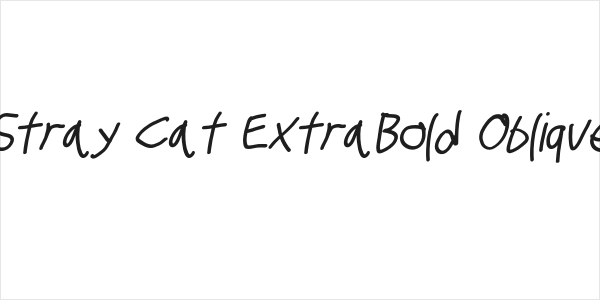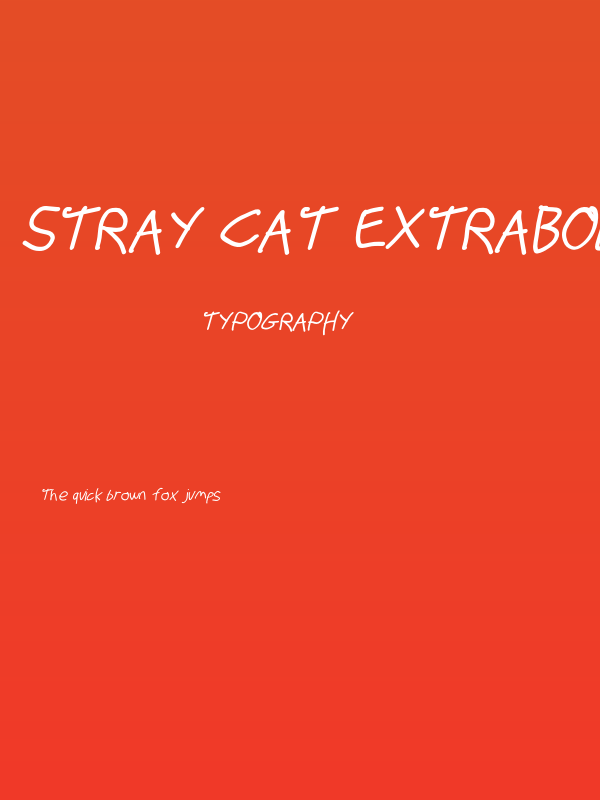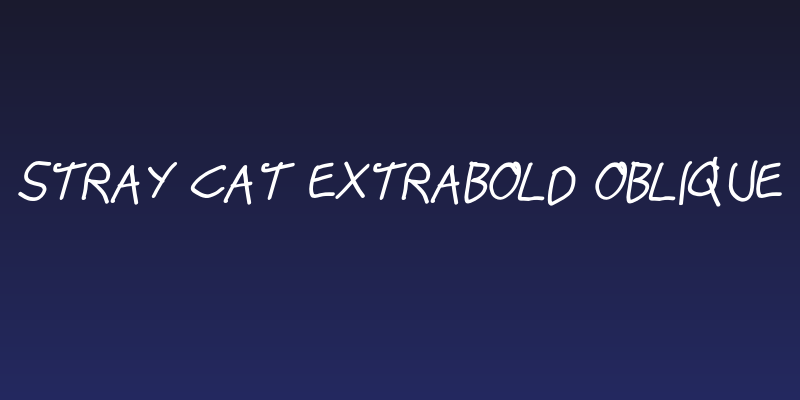
Stray Cat ExtraBold Oblique Font
Stray Cat ExtraBold Oblique Description
This font features a playful and energetic handwritten style, characterized by its bold and oblique nature. The letters are slightly slanted, giving a dynamic and informal appearance. Each character is crafted with a thick stroke, ensuring high visibility and impact. The font maintains a consistent flow, with rounded edges and a casual, friendly vibe. It is well-suited for projects that require a personal touch or a sense of spontaneity. The numbers and special characters are equally expressive, maintaining the overall aesthetic of the font.
| Use Case | Headlines, Informal Text, Branding |
| Proposed Projects | Ideal for greeting cards, children's books, casual branding, and social media graphics. |